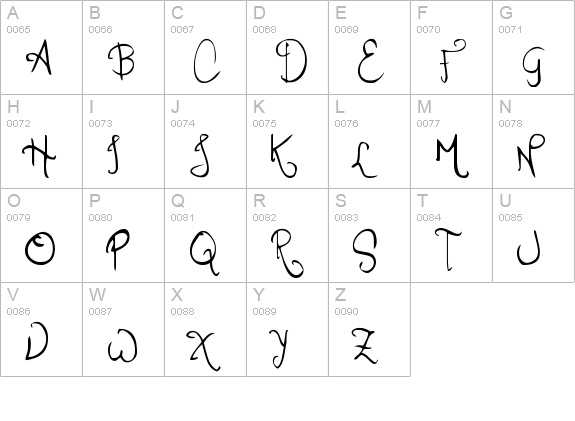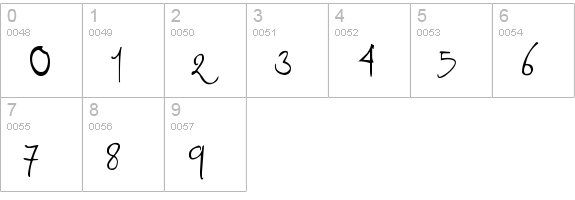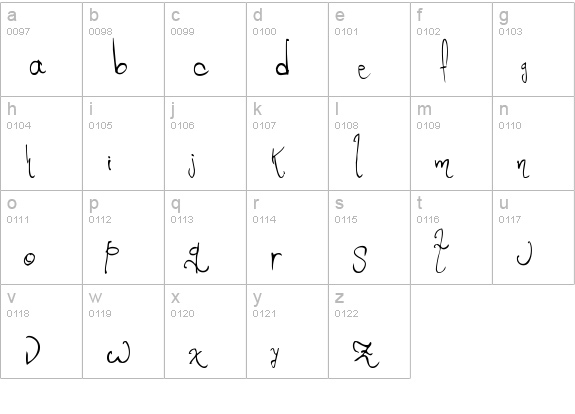
Romance Fatal 2.00 font is a breathtakingly beautiful typeface that embodies the essence of romance and passion. With its elegant curves and delicate strokes, this font will add a touch of sophistication to any project. Whether you're designing wedding invitations, love letters, or creating a romantic logo, Romance Fatal 2.00 font will effortlessly capture the hearts of your audience. This font is not only visually stunning, but it also offers a wide range of versatility. From bold headlines to graceful body text, Romance Fatal 2.00 font can be used in various design applications. Its timeless appeal makes it perfect for both traditional and modern projects. What makes Romance Fatal 2.00 font even more appealing is that it is available for free download at FontsMarket.com. This means that you can easily access this exquisite font and incorporate it into your designs without any financial constraints. FontsMarket.com offers a vast collection of fonts, and Romance Fatal 2.00 font is just one of the many gems waiting to be discovered. So, if you're looking to add a touch of romance to your next design project, look no further than Romance Fatal 2.00 font. Its captivating beauty, versatility, and availability as a free download make it an irresistible choice for designers and romantics alike. Head over to FontsMarket.com now and unlock the magic of this enchanting font.